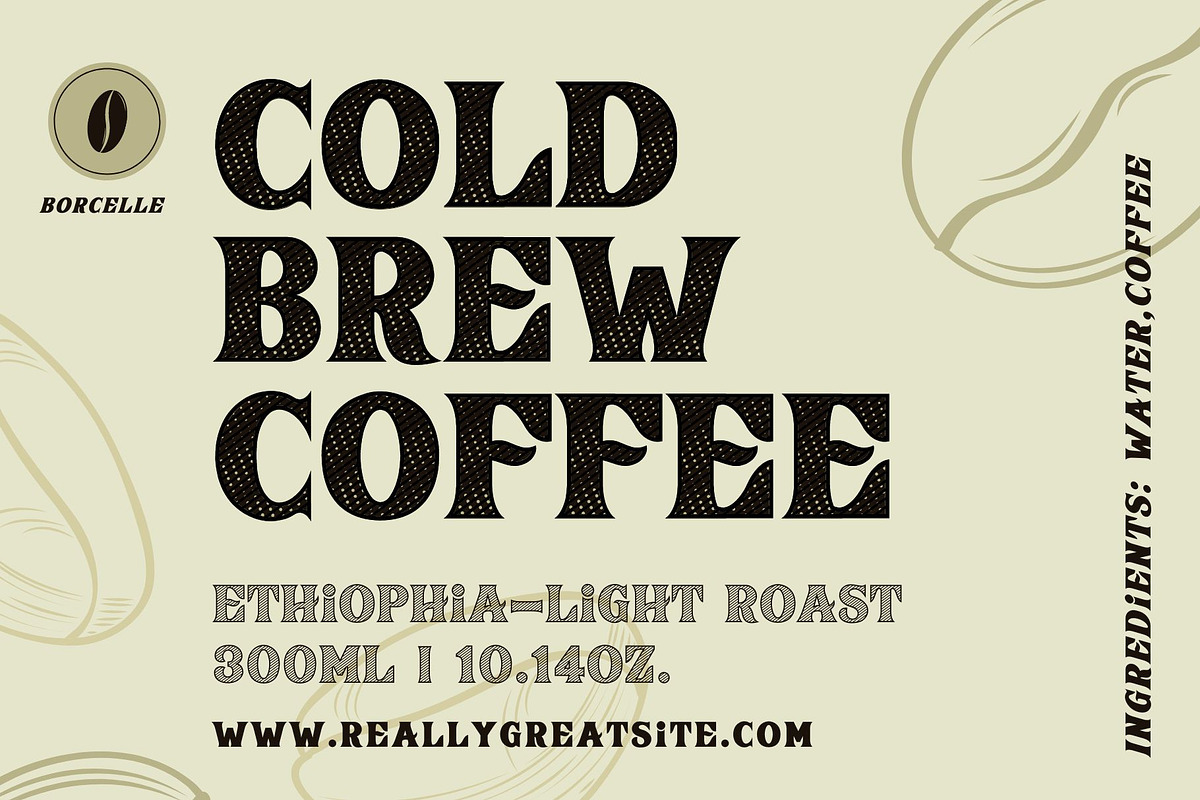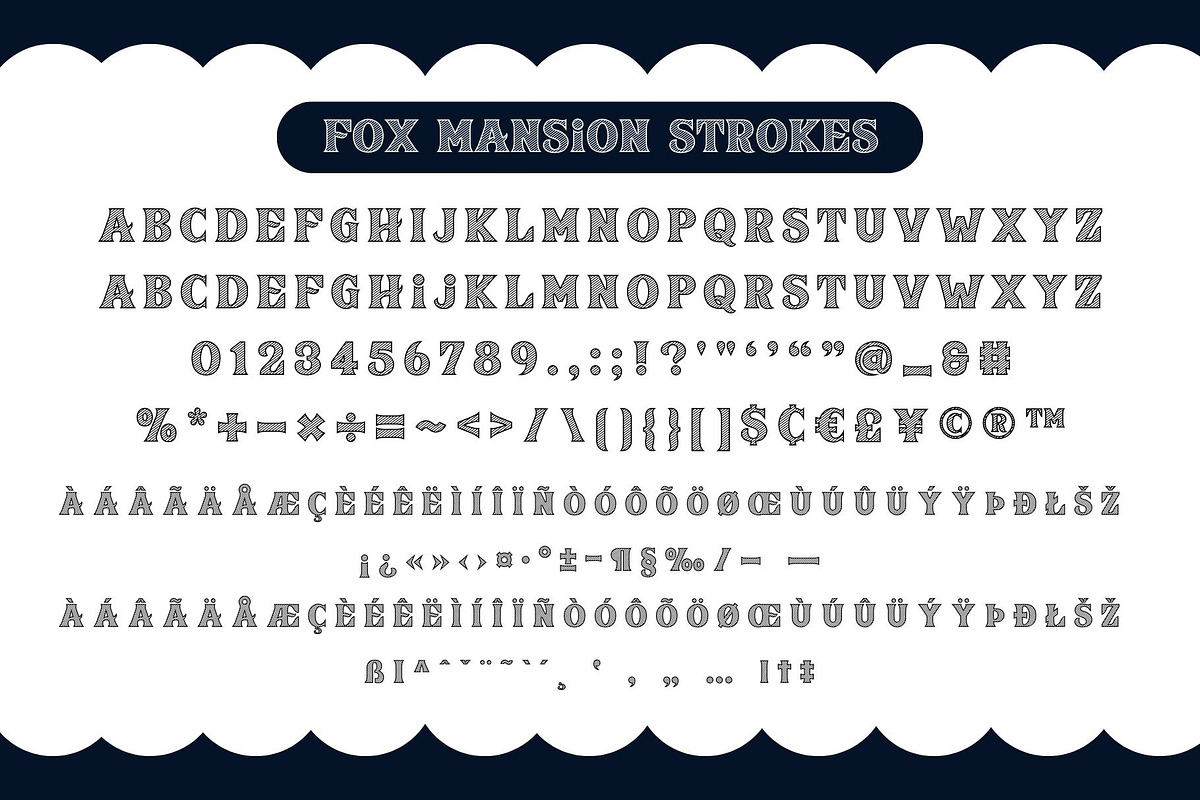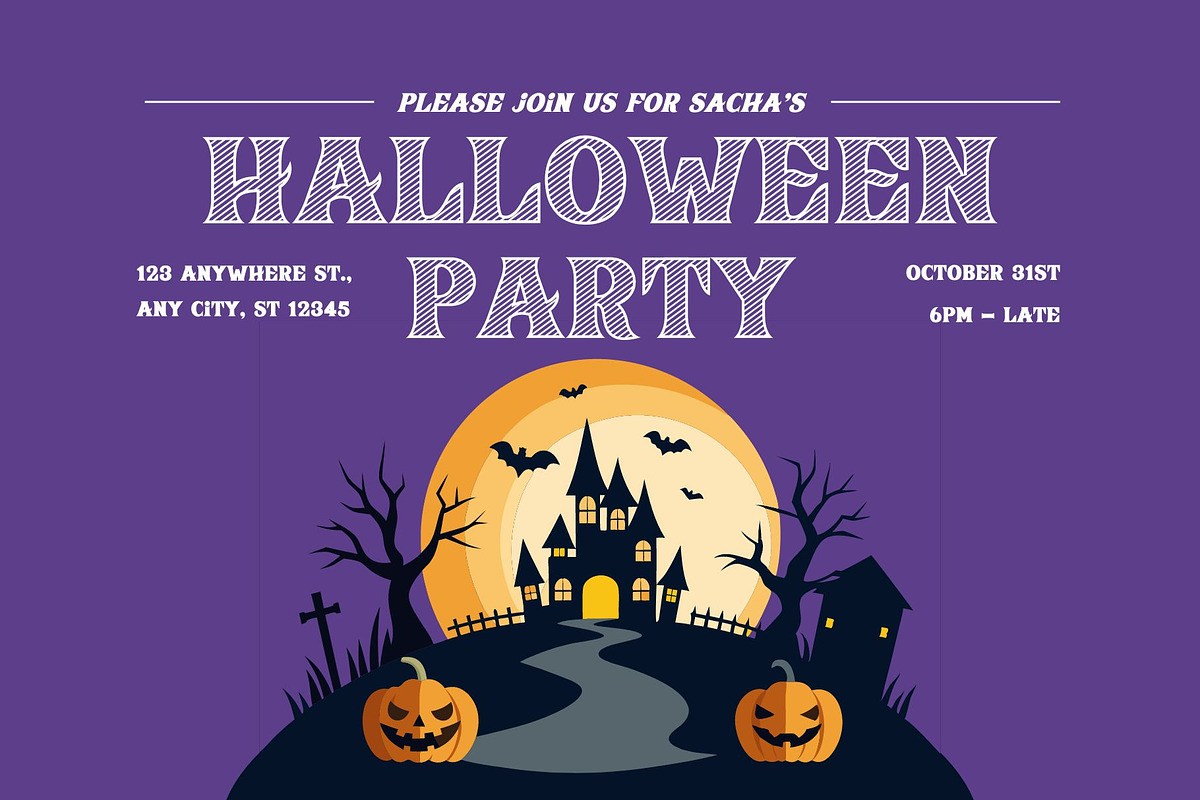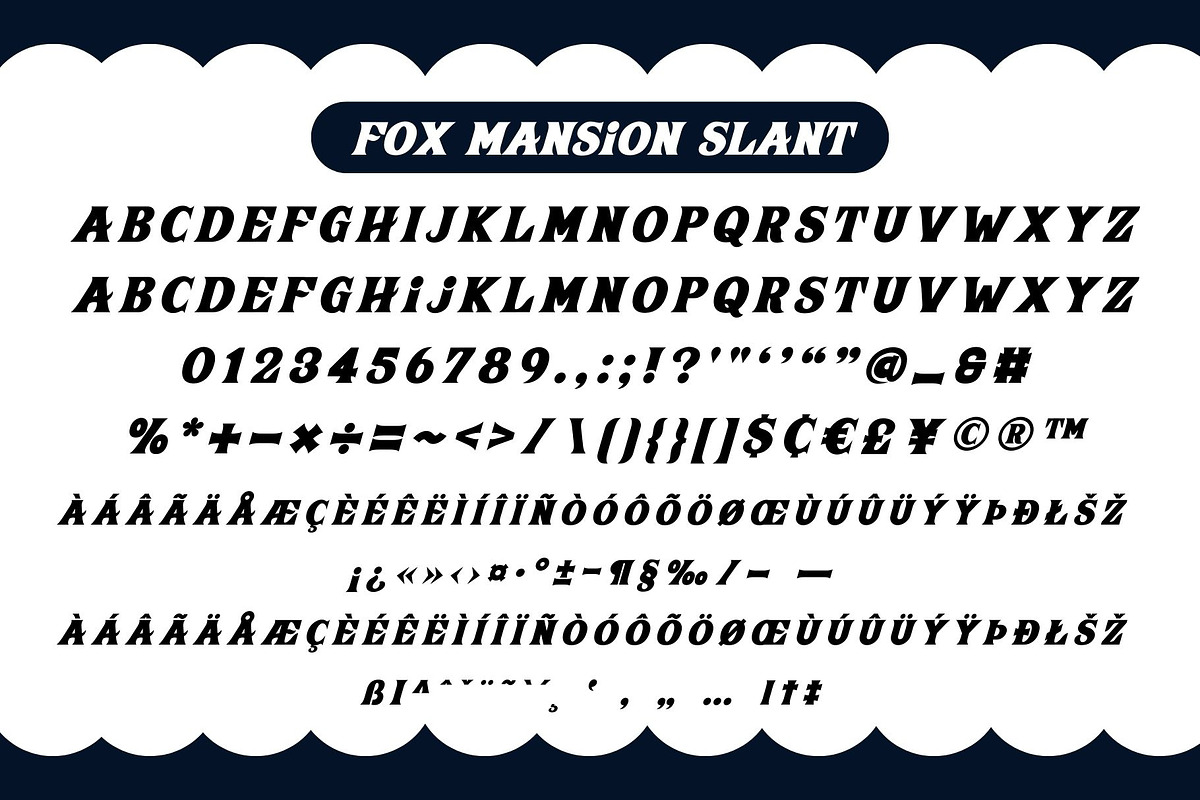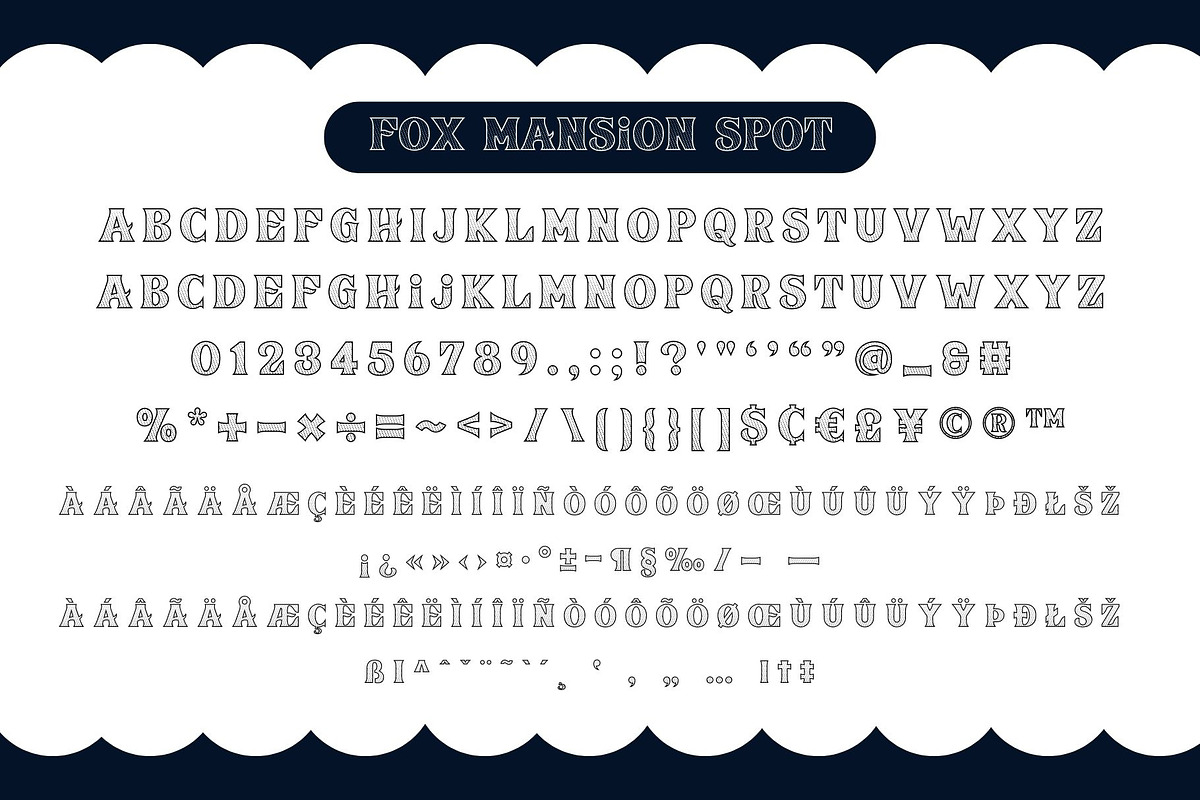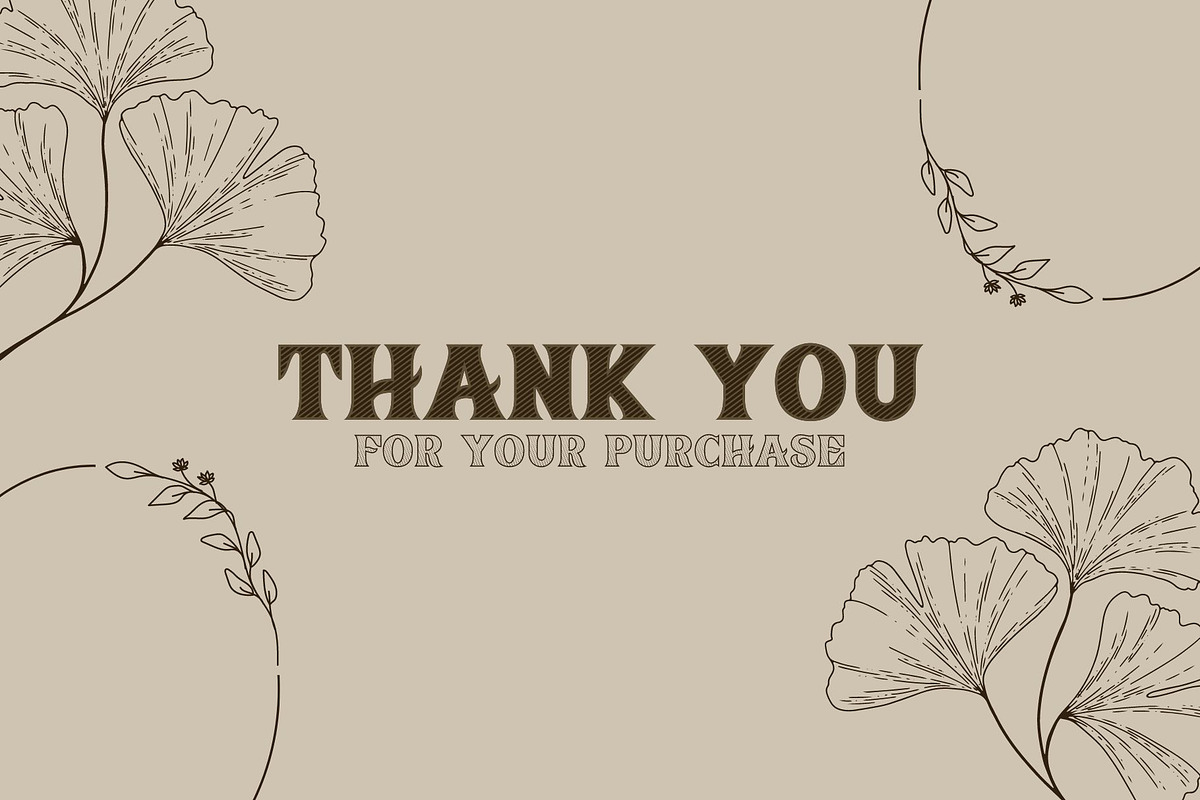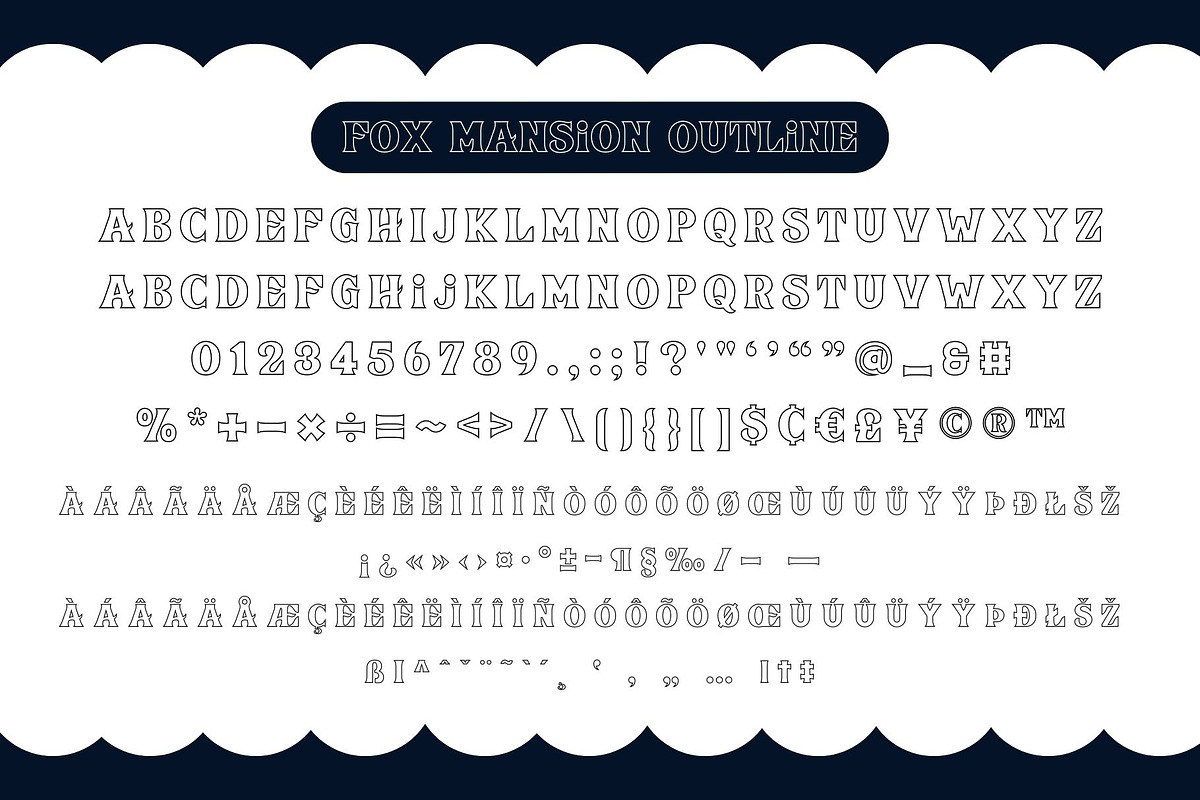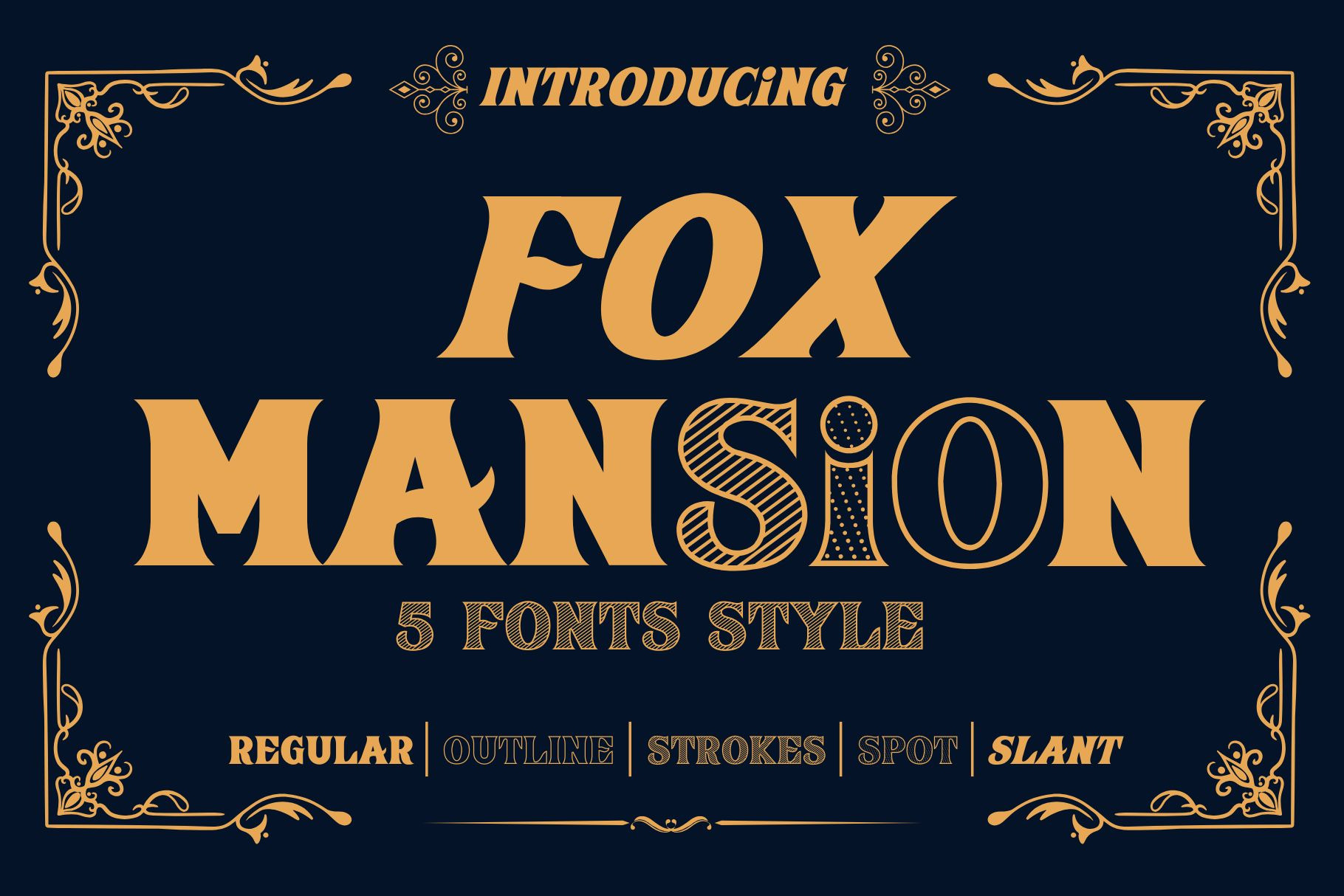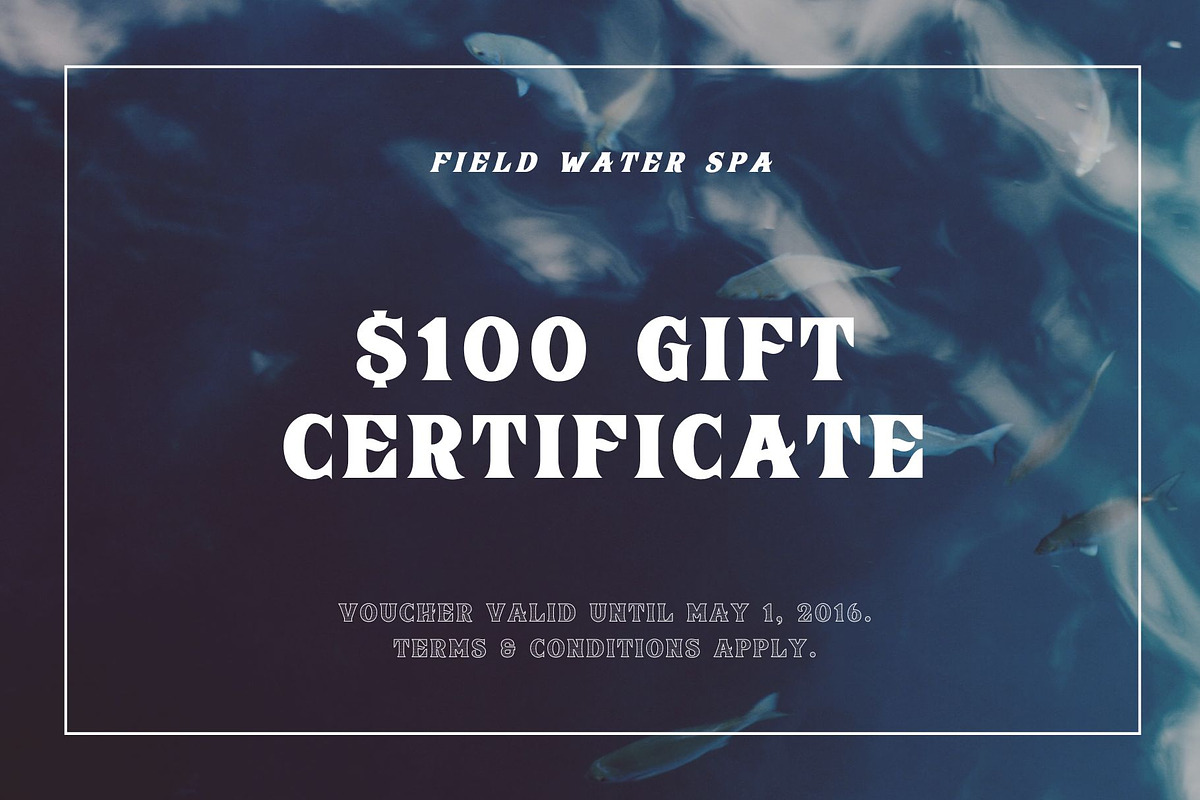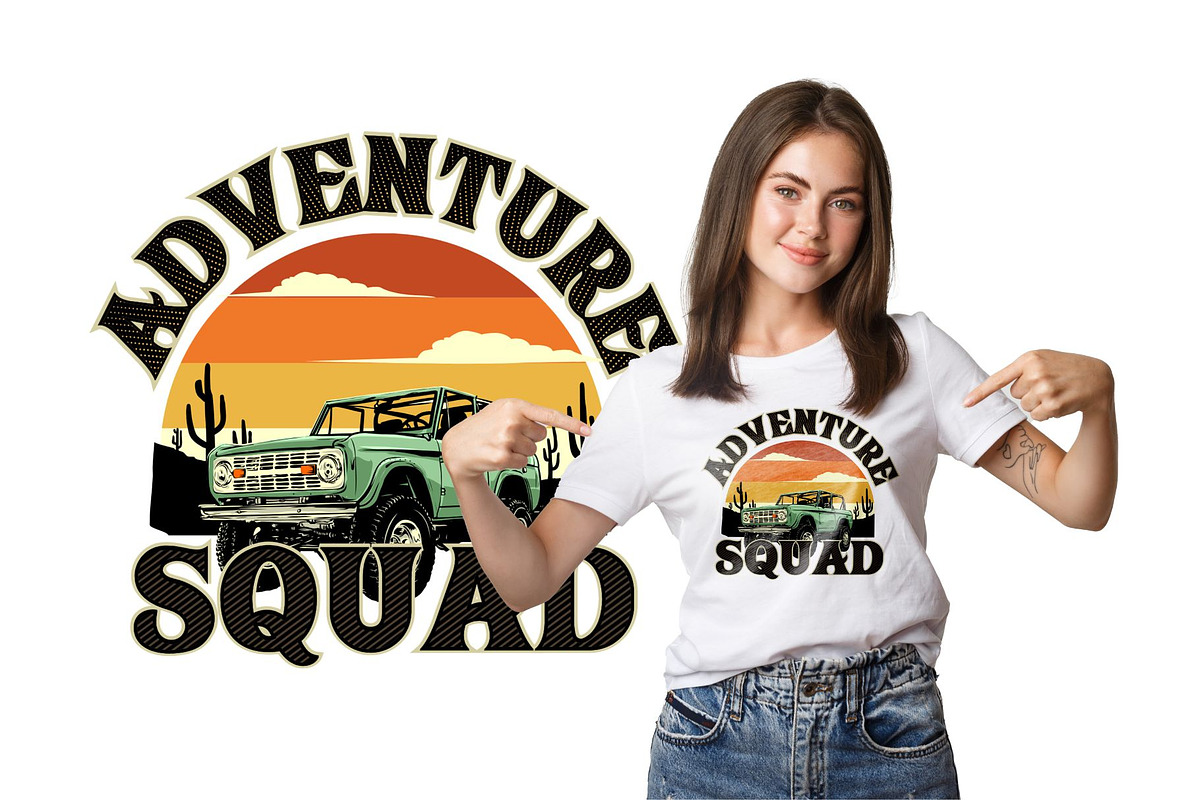
Fox Mansion 5 Fonts Style
Fox Mansion is a versatile font with 5 modern and beautiful styles. It is compatible with both contemporary and vintage design aesthetics. You can use it for various projects, including blog posts, logos, branding, advertisements, invitations, greeting cards, planners, photo albums, decorations, and much more.